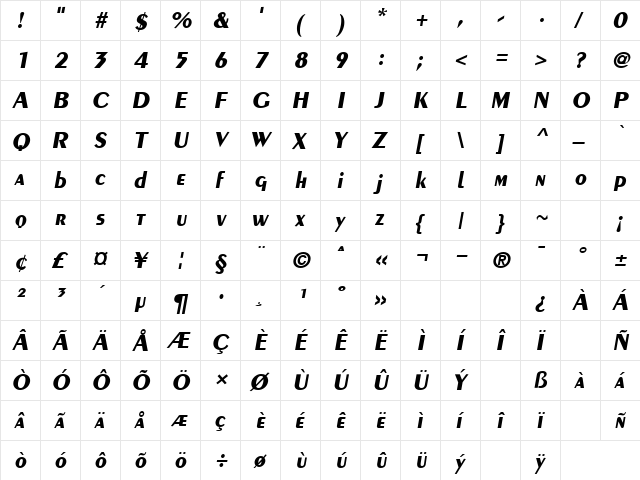
OversetBlack Oblique
Design Context for OversetBlack Typeface
OversetBlack offers clean, dependable letterforms without strong stylistic allegiance, making it a practical choice for designers who need flexibility. The dynamic lean of this cut emphasises speed and emphasis in any layout.
Pro Tip: Try OversetBlack for annotation and caption copy alongside an upright companion — the contrast in angle creates a dynamic but ordered typographic system.